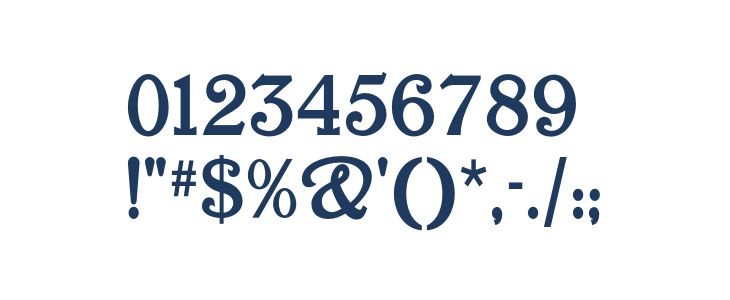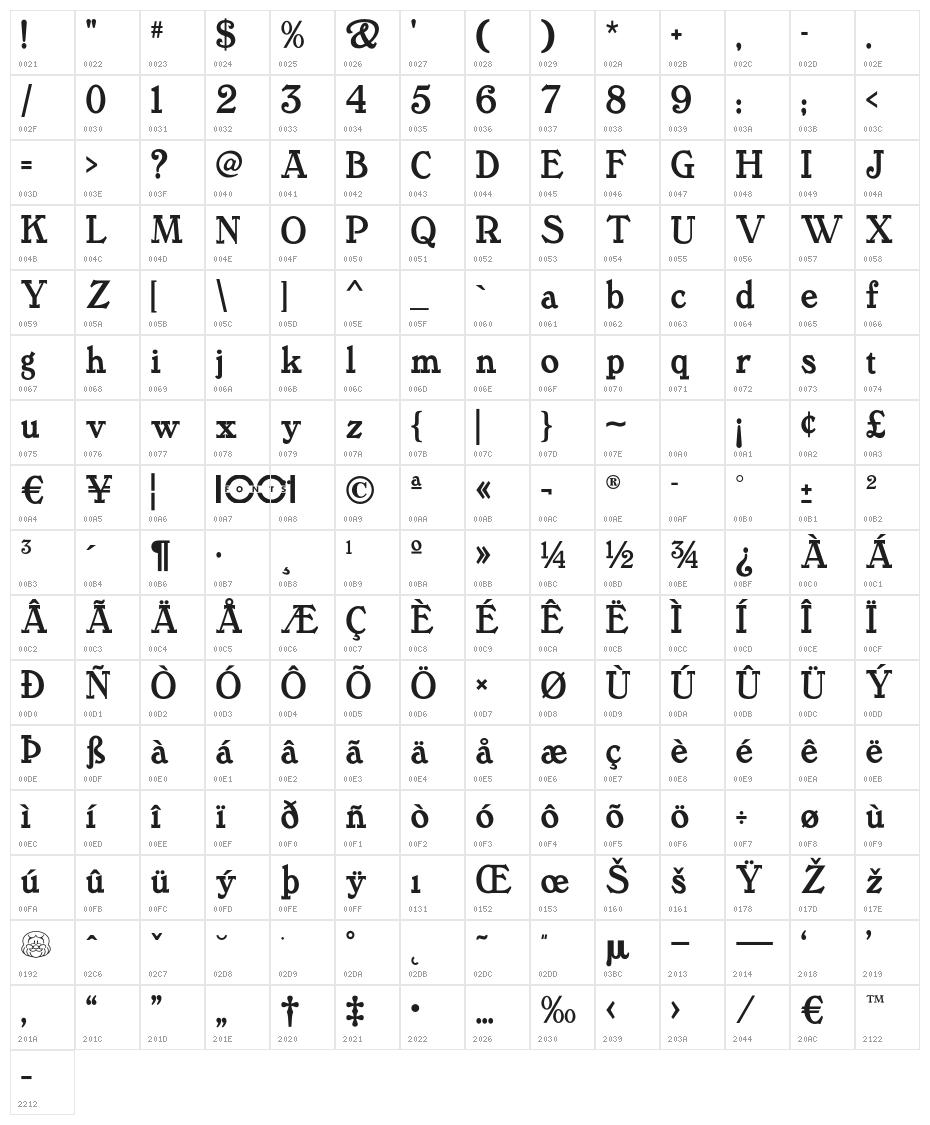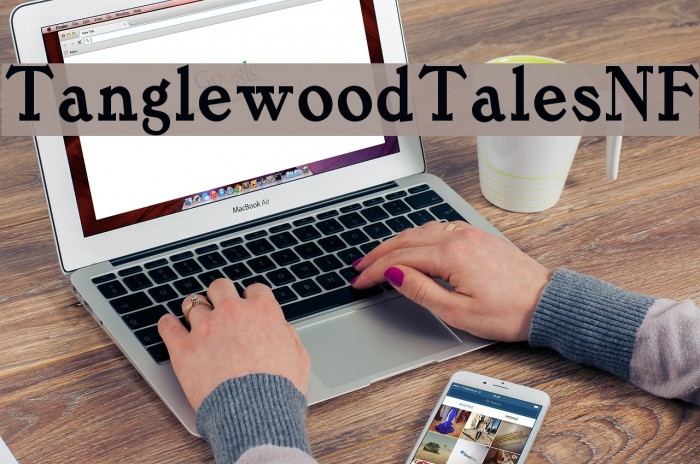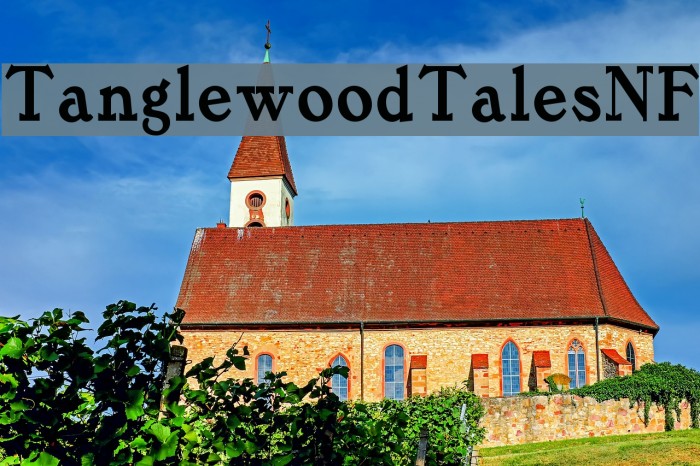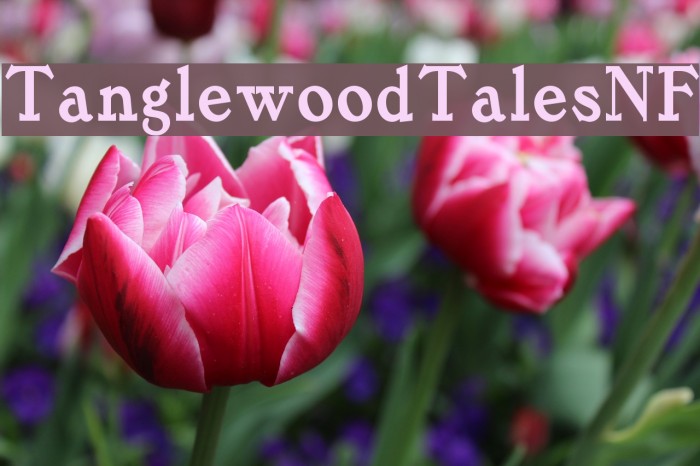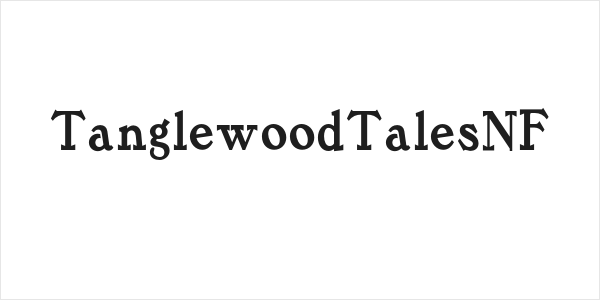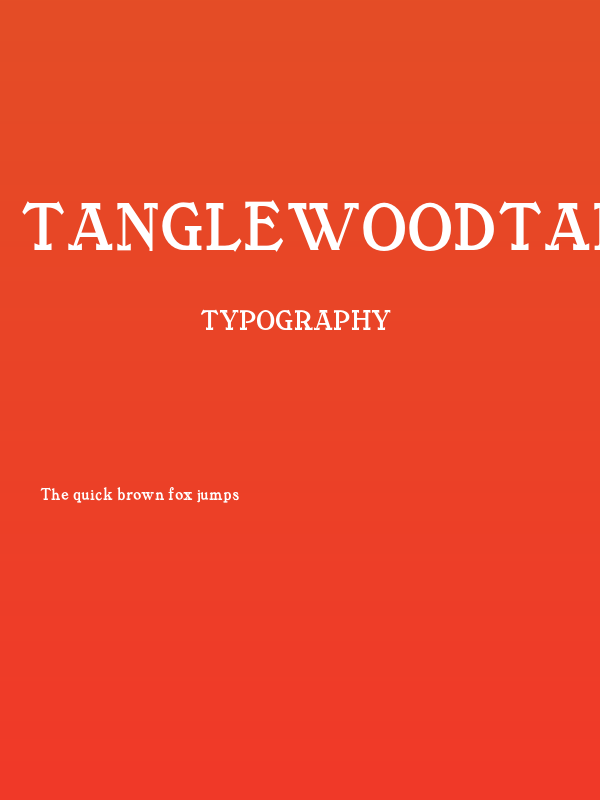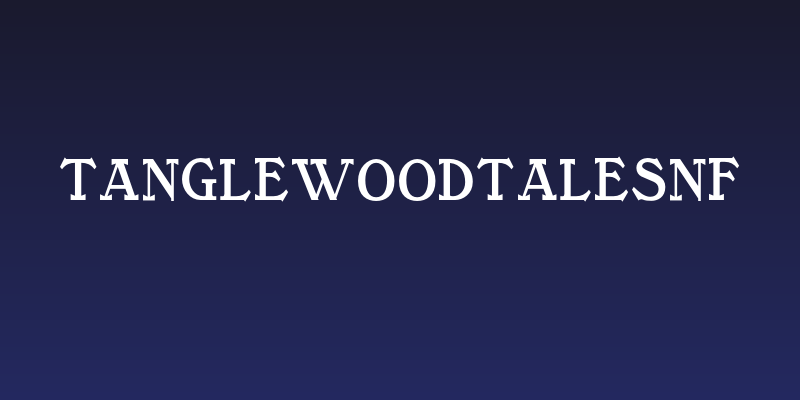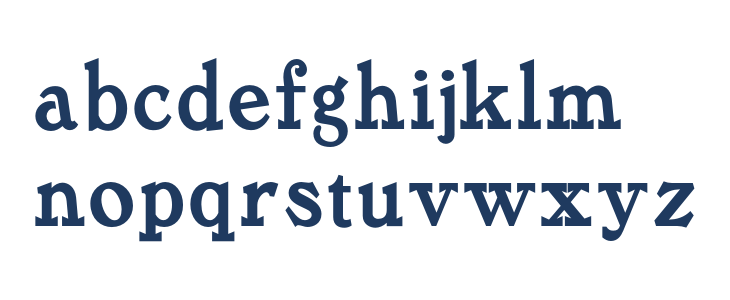
TanglewoodTalesNF Font
TanglewoodTalesNF Description
This font features a bold and distinctive style with strong serifs and a classic appearance. The uppercase letters are robust and commanding, while the lowercase letters maintain a consistent weight, offering a harmonious balance. The numerals are clear and legible, making them suitable for various applications. Special characters are well-defined, adding versatility to the font's use. The overall design is reminiscent of traditional serif fonts but with a modern twist, making it suitable for both formal and creative projects.
| Proposed Projects | Ideal for book covers, editorial design, branding, and advertising materials. |